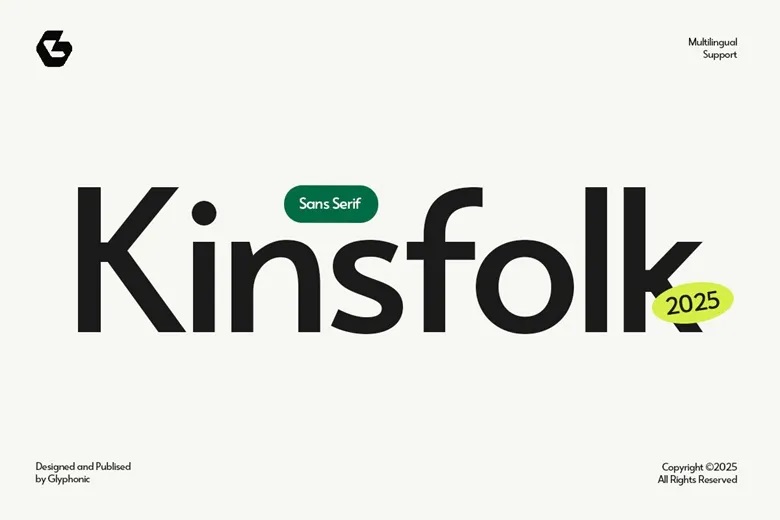
Kinsfolk Font
Kinsfolk is a contemporary sans serif font displaying a mixture of modern elegance and future style. Ideal on headlines, branding, logos, packaging, editorial layouts, it is designed to make an unforgettable impression. Kinsfolk adds character and class to any design, with its high contrast strokes, modern sans and future style. This typeface is versatile and styled with a hint of fashion, lifestyle or arts design.
Kinsfolk Sans Serif Font